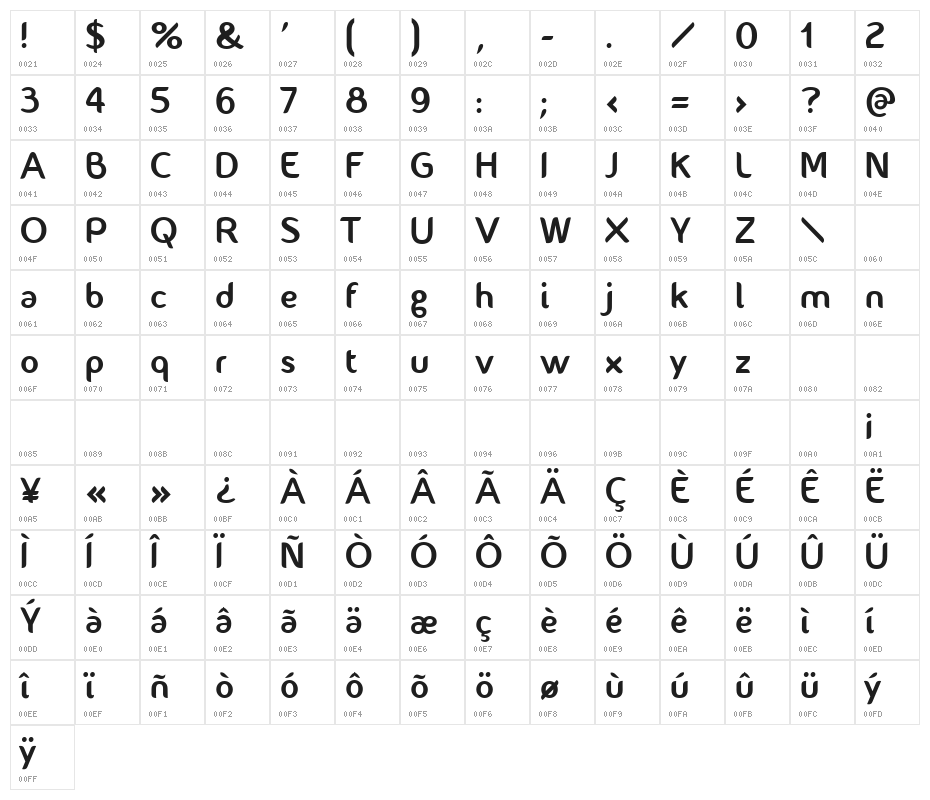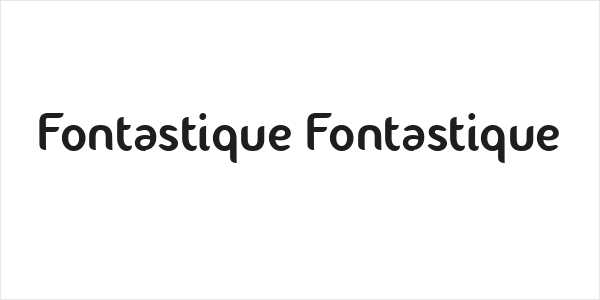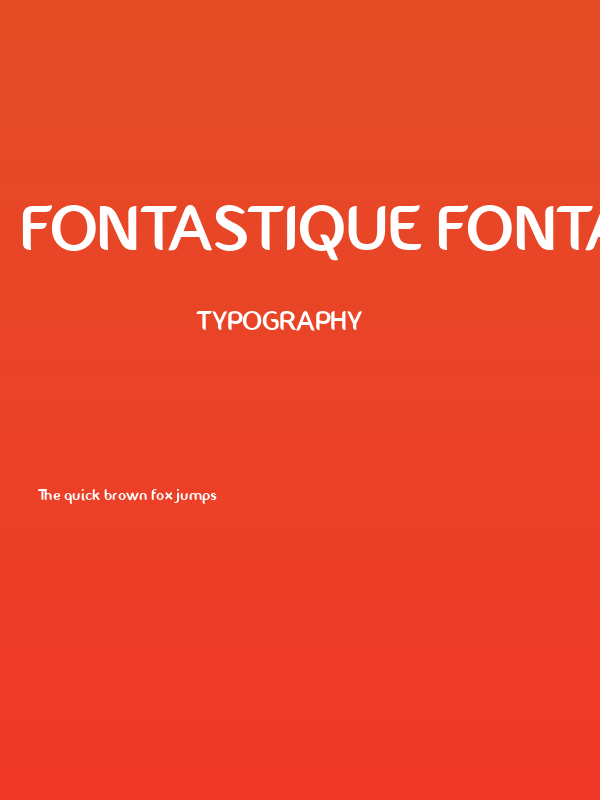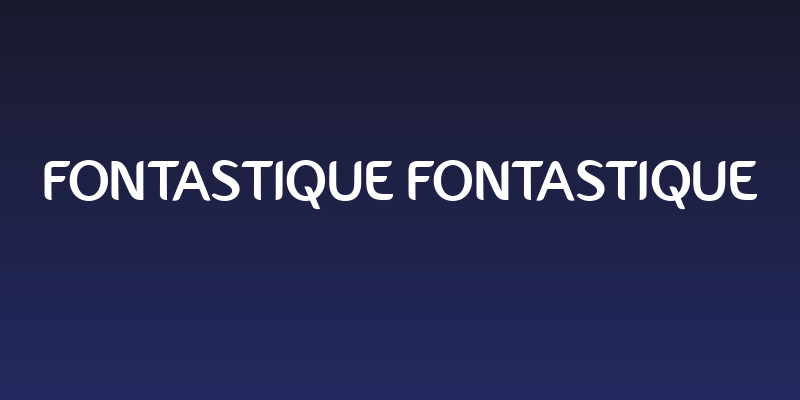
Fontastique Font
Fontastique Description
This font features a modern, rounded design with smooth curves and a friendly appearance. The characters are bold and have a consistent stroke width, giving them a uniform look. The uppercase letters are slightly taller than the lowercase, maintaining a balanced proportion. The numerals are clear and easy to read, while the special characters are distinct and well-integrated into the overall style. The font's rounded edges and uniform stroke make it suitable for a variety of applications, offering a contemporary and approachable feel.
| Use Case | Headlines, Logos, Digital interfaces |
| Proposed Projects | Ideal for branding, advertising, children's books, and digital interfaces. |